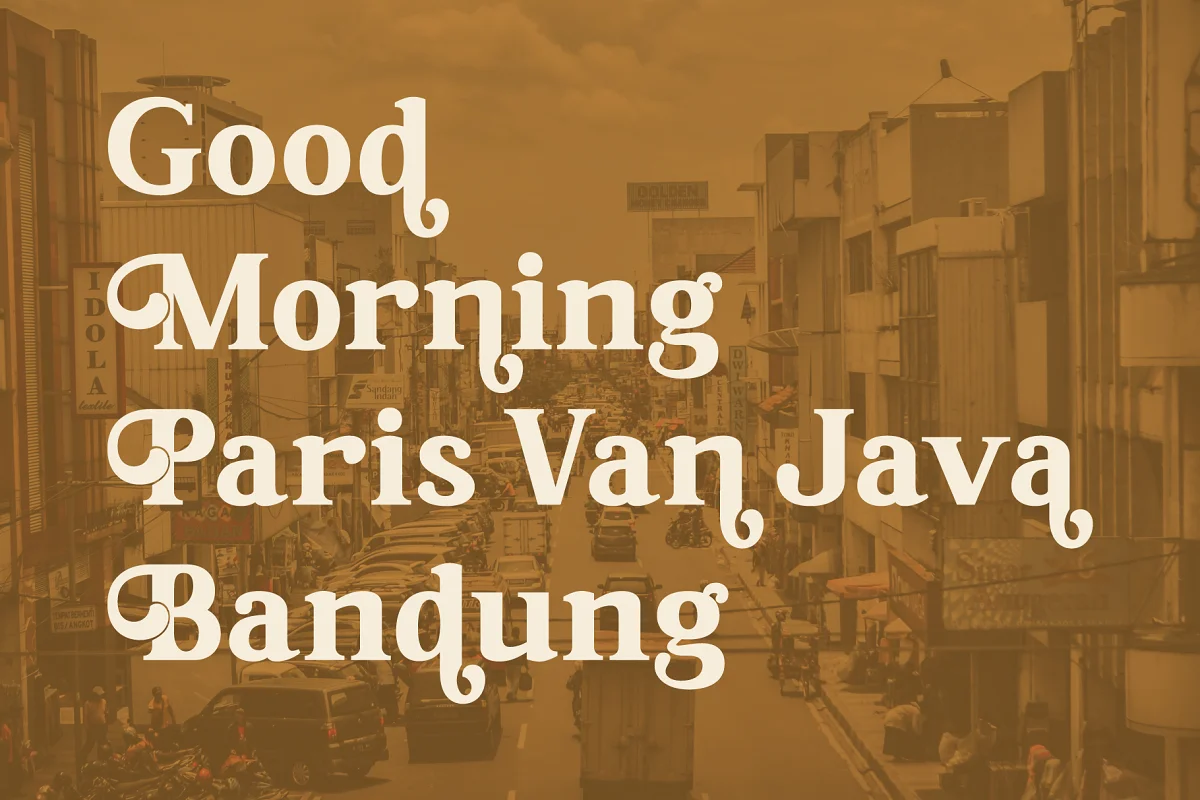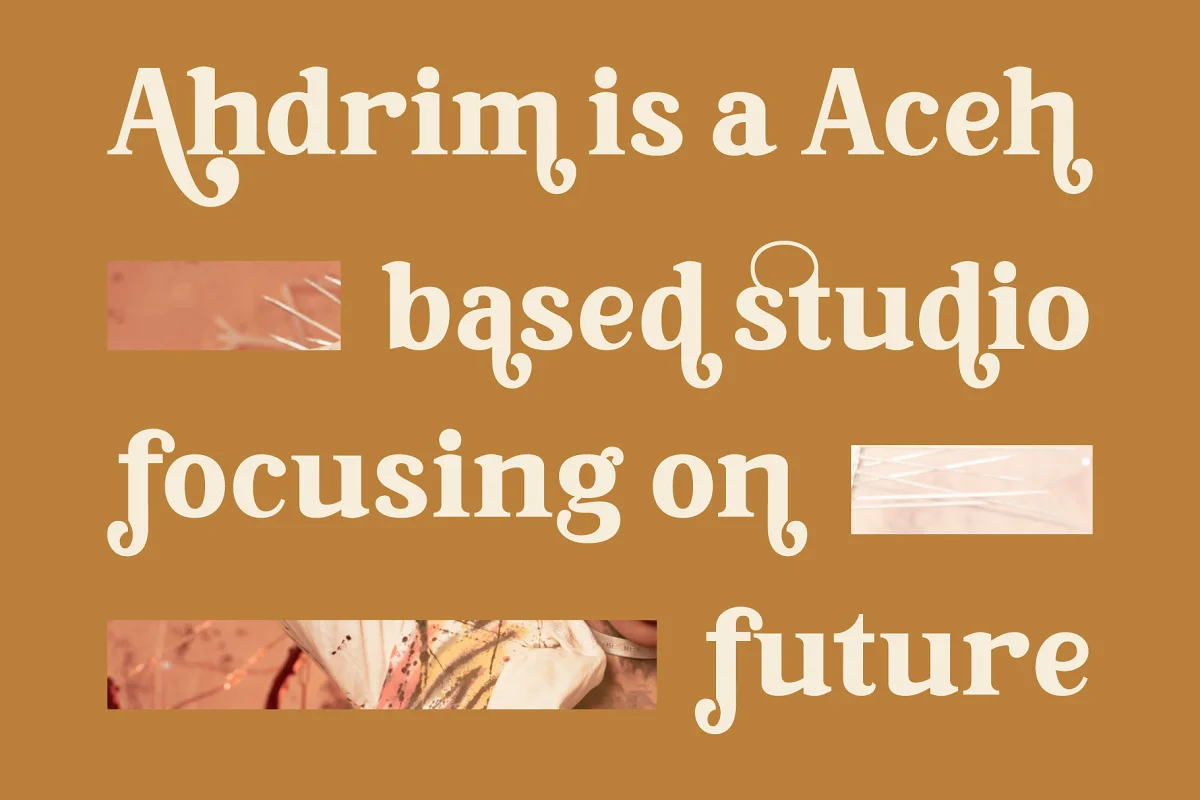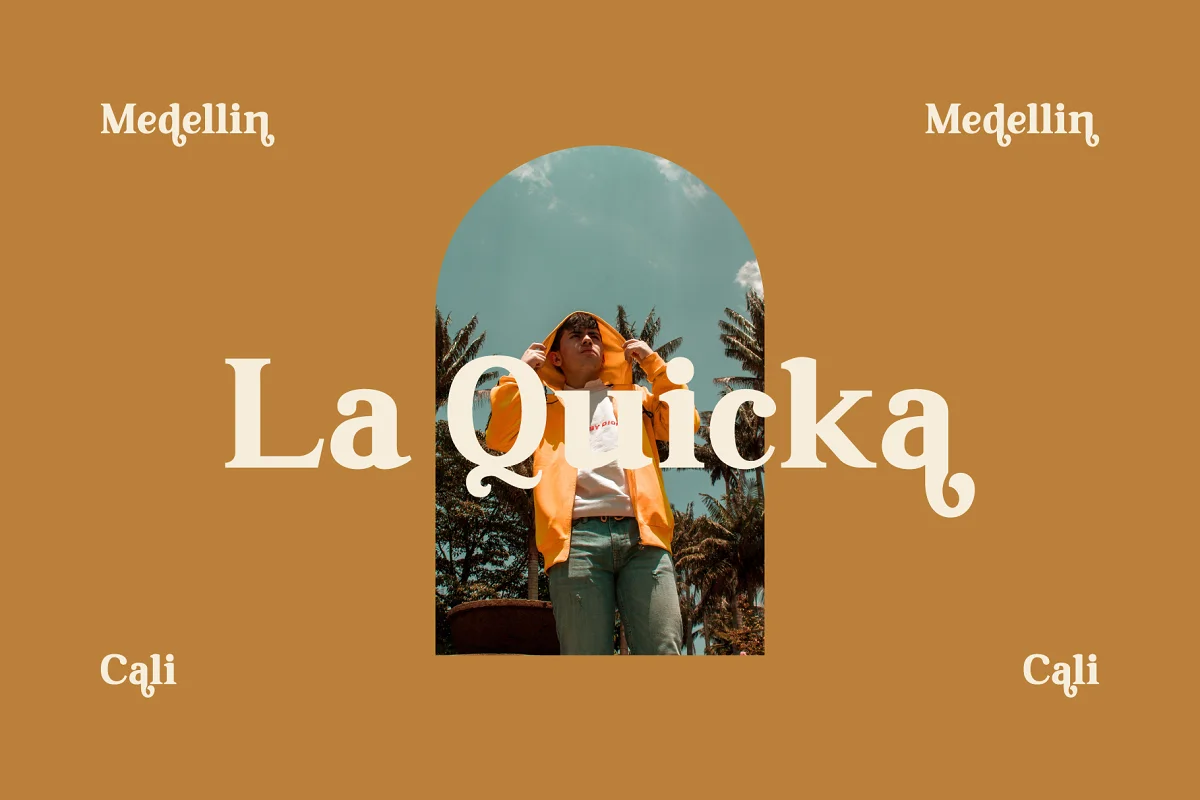
About the Nathallia Modern Serif Font
Nathallia is a bold serif while elegance is still maintained. It will boost your design stand out!
Nathallia is the perfect typeface for any kind of your project, such as advertisements, branding, graphic design, quotes, wedding design, logo for online or offline business, photography, and others. Make your business more elegant beautiful!